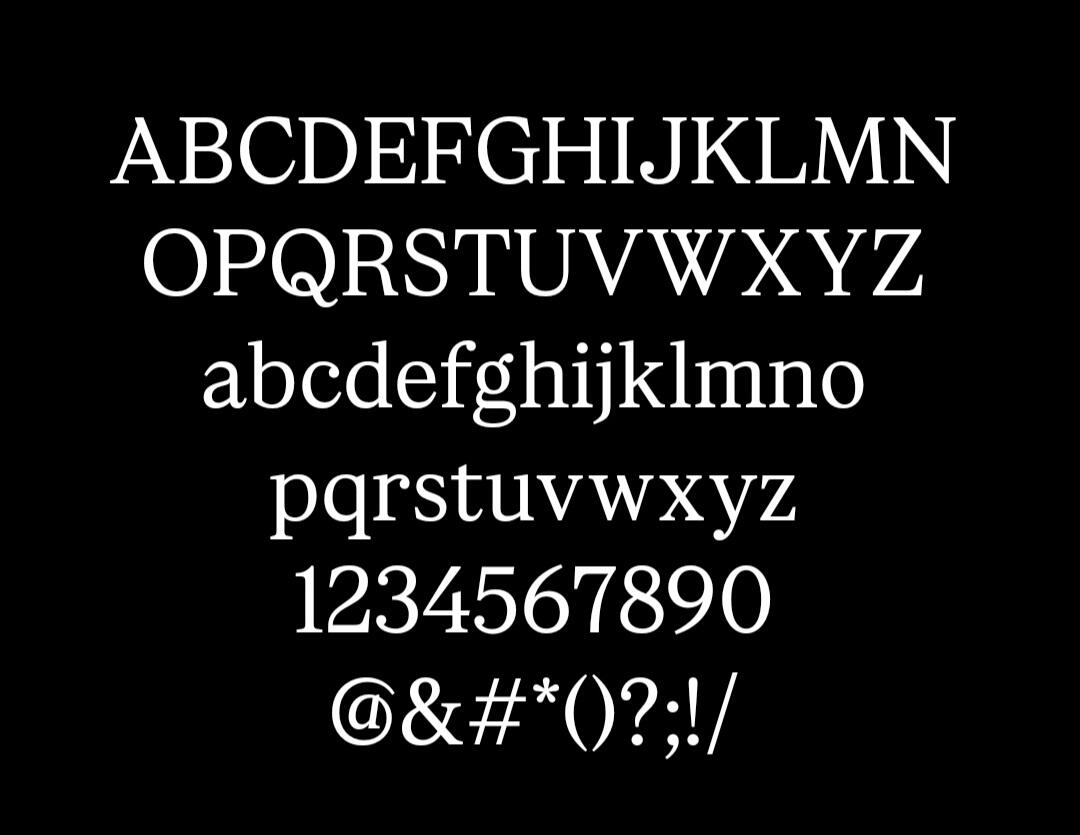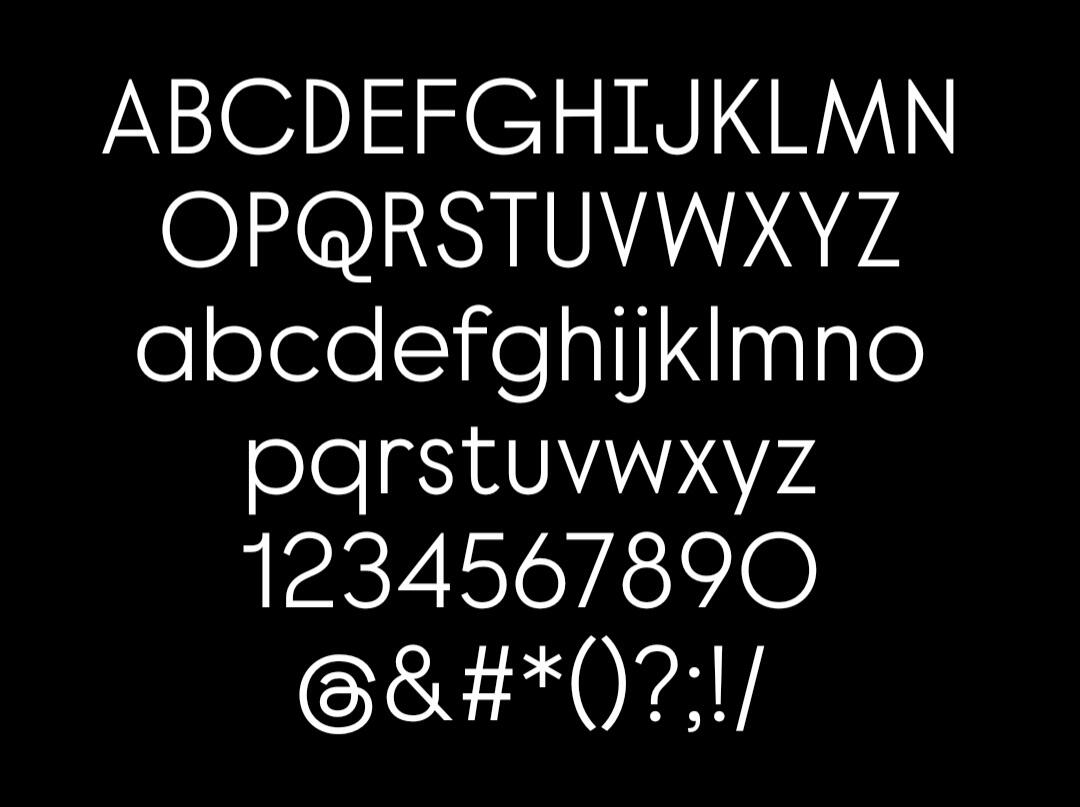
Need help identifying the serif and sans serif font used in Instagram stories
I need help identifying the serif and sans serif fonts titled 'Literature' and 'Deco' in Instagram official stories interface.
I've attached specimen of both of them, please help me find the exact fonts or alternatives are alright.